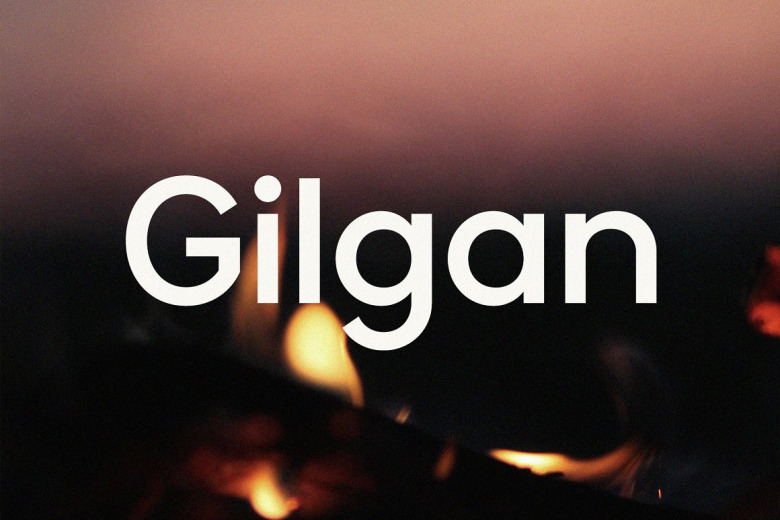
Gilgan Font
Introducing Gilgan Sans Serif Font. Giligan is an elegant and modern typeface, as a display for headings, logos, branding, magazines, product packaging and invitations. Giligan come with clear lines and smooth curves add an extra touch of class to any project.
Gilgan Sans Serif Font